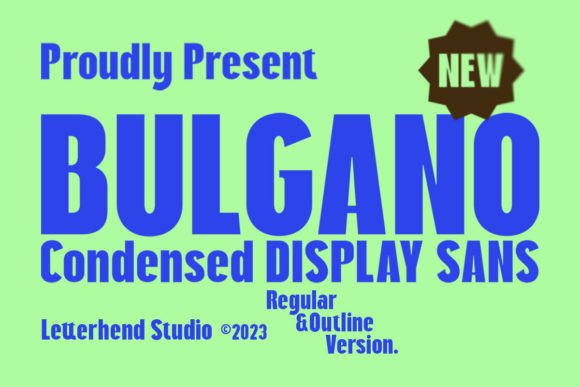
Discover the Charm of Bulgano Font: A Comprehensive Guide
As a designer, I’ve had my fair share of moments where finding the perfect font felt like searching for a needle in a haystack. I recall working on a project where I needed a font that was both classic and casual, yet bold and eye-catching. The client wanted a label design that would stand out on a crowded shelf, and I was determined to deliver. That’s when I stumbled upon Bulgano Font, a condensed display font with 2 styles, regular and outline. In this article, I’ll share my experience with Bulgano Font, its features, and how to make the most of it in your designs.
A Personal Review of Bulgano Font
So, what makes Bulgano Font special? Here are a few things I love about it:
- ✨ Classic and casual looks that make it perfect for a wide range of design projects
- ✅ Highly legible, even in small sizes
- 💡 Condensed design that saves space without sacrificing style
- 🎨 Versatile and adaptable to different design contexts
Of course, no font is perfect, and Bulgano Font has a few quirks:
- 🤔 Limited language support, so it’s best suited for English or similar languages
- ⚠️ Not ideal for body text, as it’s designed for display purposes
Bulgano Font supports OpenType features, which allow you to access additional glyphs and stylistic alternates. To access these features, you’ll need to use a design platform that supports OpenType, such as Adobe Creative Cloud. Some of the OpenType features you can explore include:
- Ligatures: These are special character combinations that can add visual interest to your text
- Stylistic alternates: These are alternative glyphs that can be used to create a unique look
The Backstory of Bulgano Font
Bulgano Font was designed with the goal of creating a versatile and stylish font that could be used for a wide range of design projects. The designer aimed to create a font that was both classic and modern, with a unique character that would stand out in any design. While I couldn’t find any specific information on the designer’s inspiration, it’s clear that Bulgano Font was crafted with care and attention to detail.
- Q: What type of projects is Bulgano Font best suited for?
- A: Bulgano Font is perfect for labels, logos, magazines, books, greeting cards, packaging, fashion, and any type of advertising purpose.
- Q: Can I use Bulgano Font for body text?
- A: No, Bulgano Font is designed for display purposes and is not ideal for body text.
- Q: Does Bulgano Font support OpenType features?
- A: Yes, Bulgano Font supports OpenType features, including ligatures and stylistic alternates.